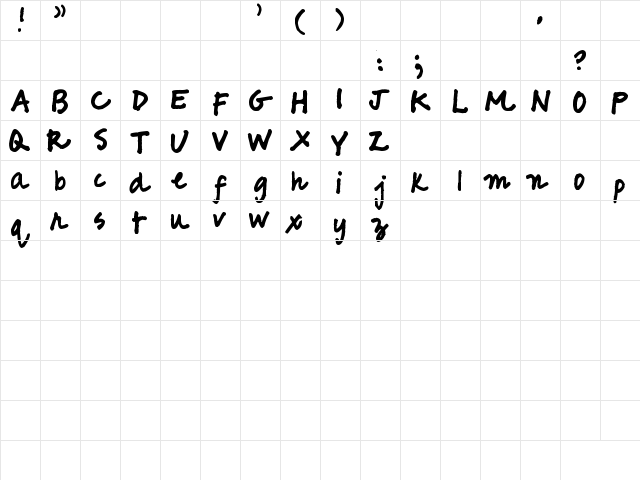
Pea Friend Regular
Design Context for Pea Friend Typeface
Pea Friend is a composed and adaptable typeface that performs quietly and consistently across a wide range of design contexts.